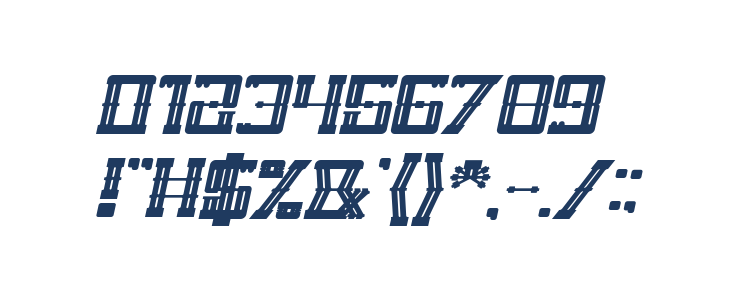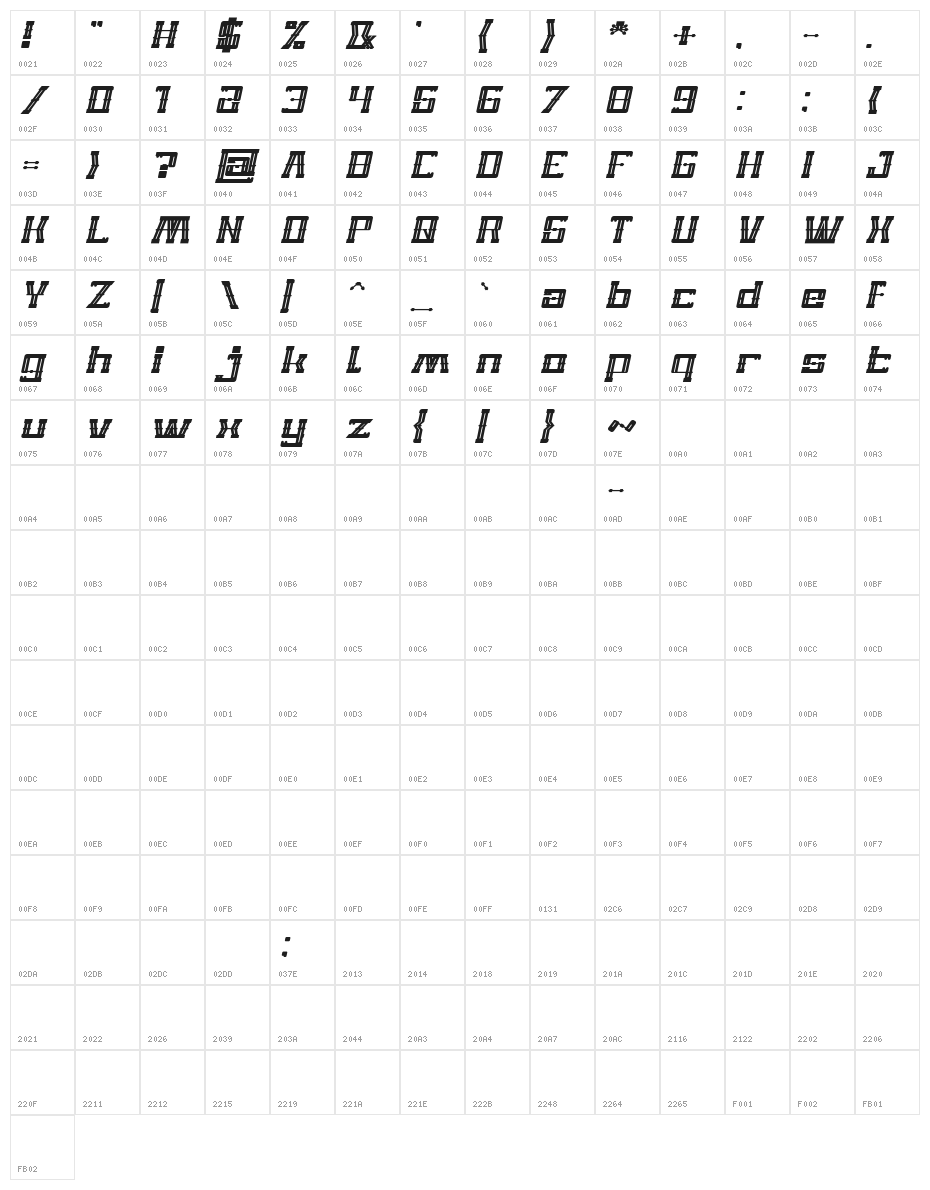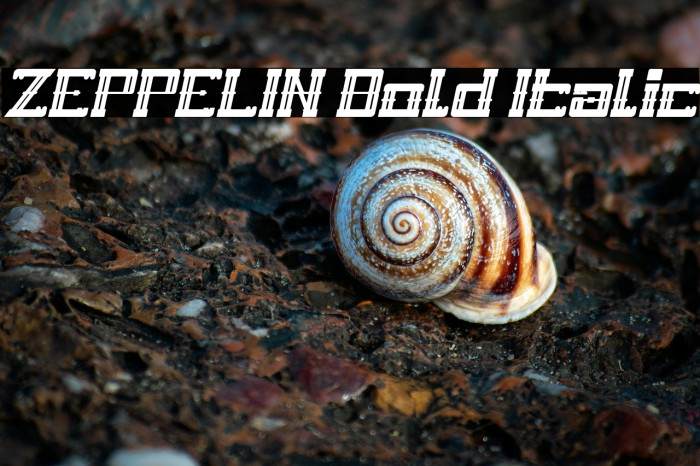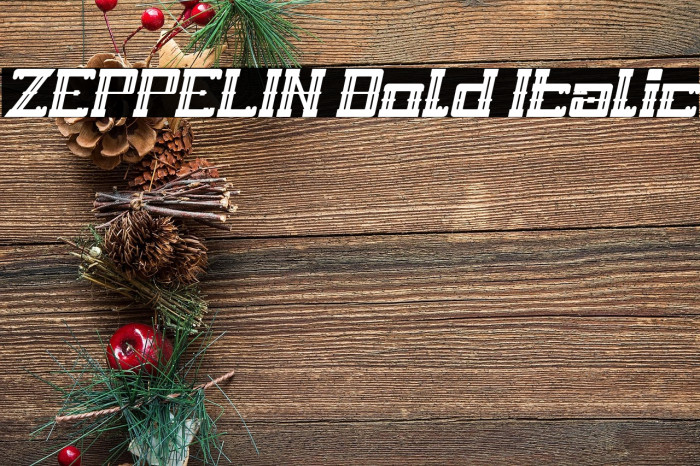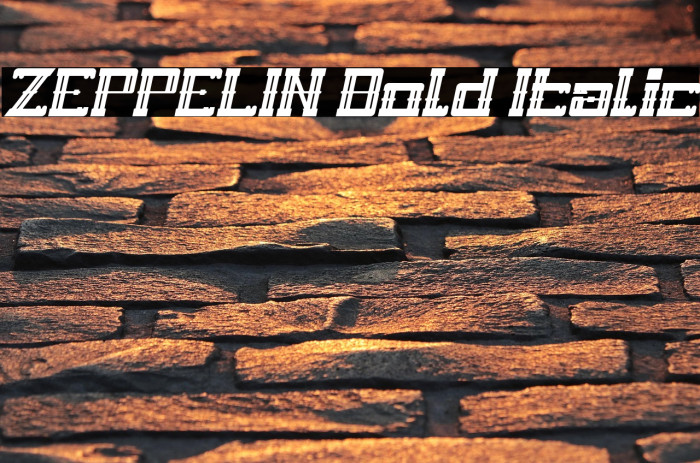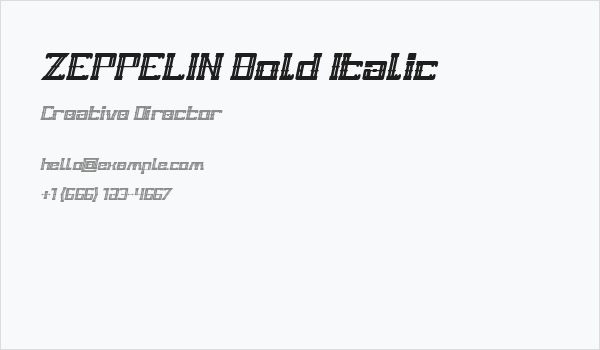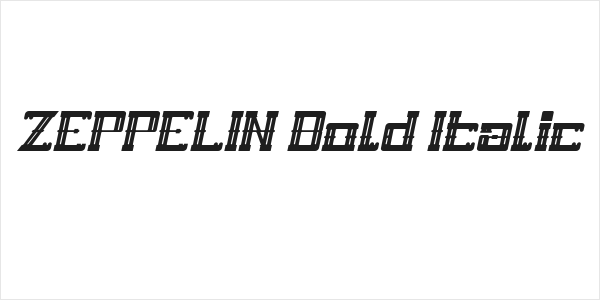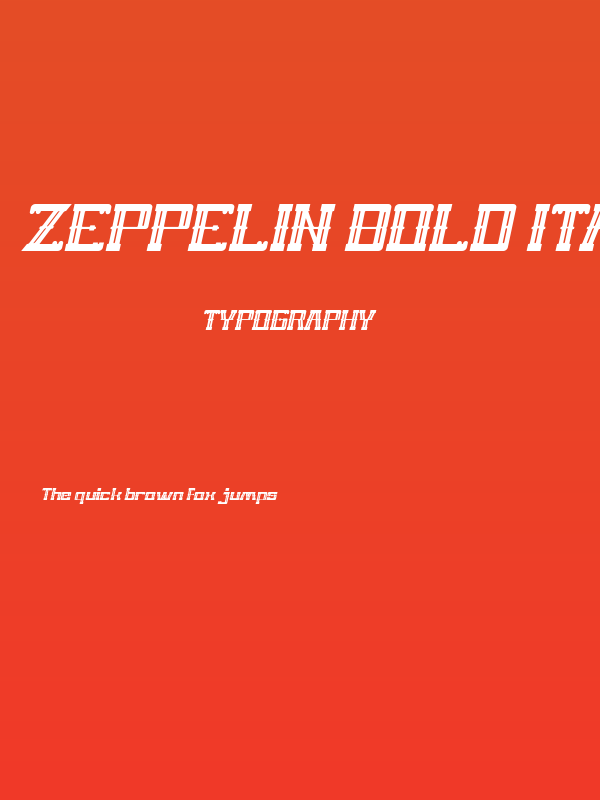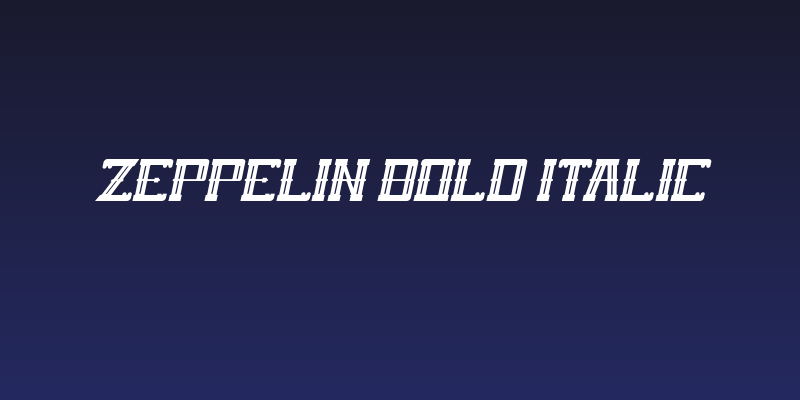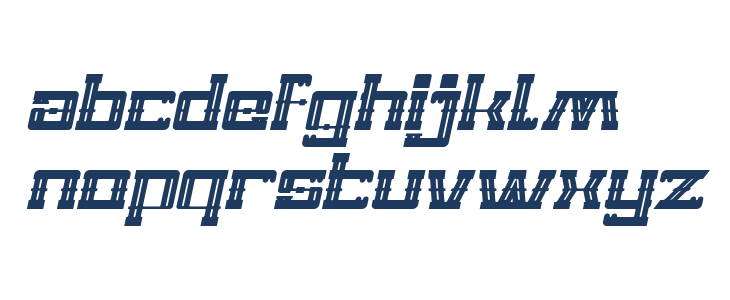
ZEPPELIN Bold Italic Font
ZEPPELIN Bold Italic Description
This font features a bold and italicized style with a distinct geometric and industrial aesthetic. The characters are constructed with sharp angles and a mechanical feel, reminiscent of retro-futuristic design. The uppercase and lowercase letters maintain a consistent slant, enhancing the italic effect. The numerals and special characters follow the same design principles, ensuring uniformity across all glyphs. The font's bold weight and italic style make it stand out, suitable for attention-grabbing headlines or branding materials that require a strong visual impact.
| Overall Style | Retro-Futuristic |
| Proposed Projects | Ideal for retro-futuristic designs, branding, posters, and headlines that require a bold statement. |